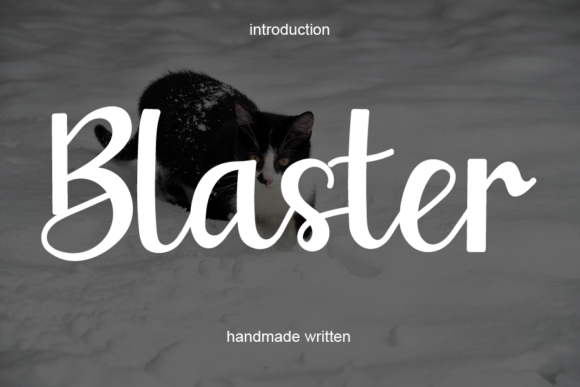
The Blaster Font: A Playful Romantic Charm for Your Designs
An Honest Review of Blaster Font
So, what makes Blaster font so special? Let’s dive into the good stuff and some minor quirks to consider.
What I Love About Blaster Font
- ✨ Playful romantic charm: Blaster font exudes a sense of whimsy and romance, making it perfect for designs that require a touch of elegance and sophistication.
- ✅ Versatility: This font works well for a variety of designs, from wedding invitations and branding to social media graphics and more.
- 💫 Unique character: Blaster font has a distinct personality that sets it apart from other script fonts, ensuring your designs stand out.
While Blaster font is an excellent addition to any design library, there are a few minor things to keep in mind:
- 🤔 Limited use in body text: Due to its script nature, Blaster font might not be the best choice for lengthy body text. It’s better suited for headings, titles, or short paragraphs.
- Experiment with OpenType features, such as Stylistic Alternates and Swashes, to add more flair to your text.
The Story Behind Blaster Font
Blaster font was designed with the intention of capturing the essence of playful romance. The designer aimed to create a font that would evoke feelings of joy, love, and whimsy. With its unique character and elegant features, Blaster font has become a favorite among designers and crafters.
Q: Is Blaster font suitable for body text?
A: While Blaster font is beautiful, it’s better suited for headings, titles, or short paragraphs due to its script nature.
Q: Does Blaster font support OpenType features?
A: Yes, Blaster font supports OpenType features, including Stylistic Alternates and Swashes, which can add more flair to your designs.